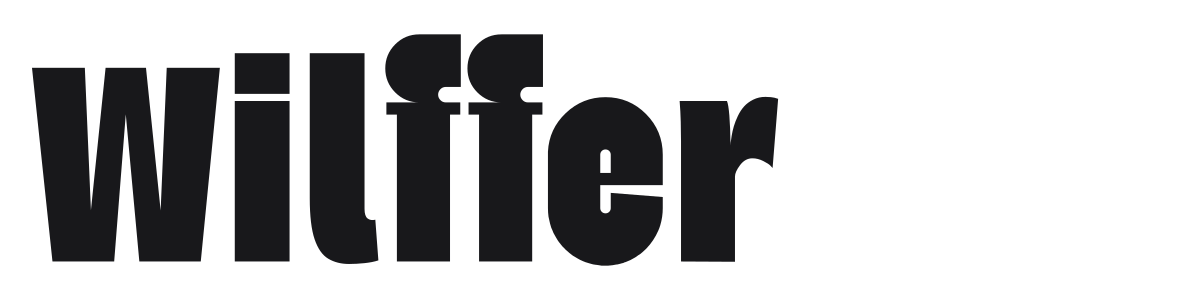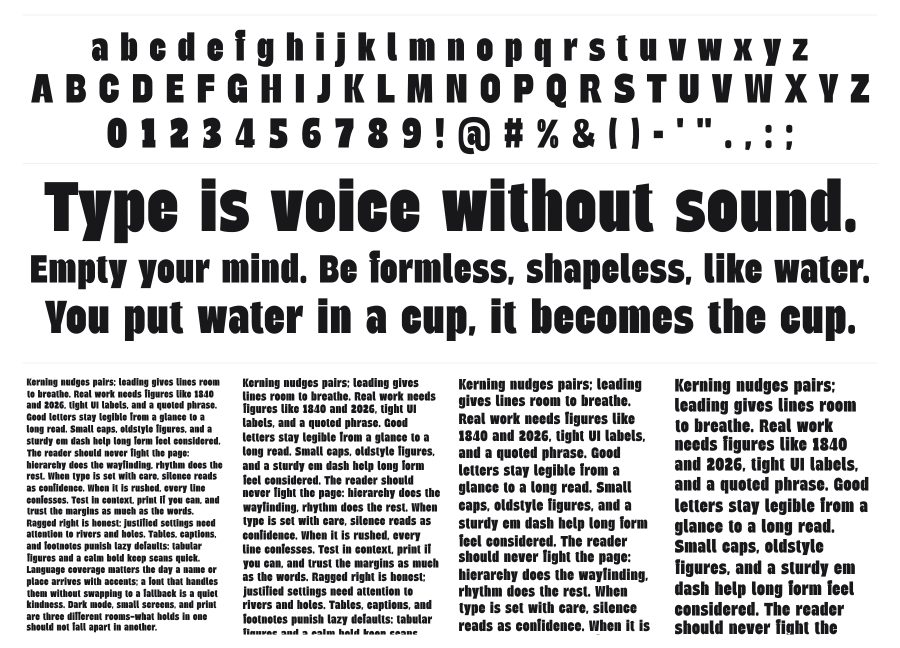
Wilffer
Wilffer is a heavy condensed grotesque sans with extreme weight and tall, tight proportions that command attention at large sizes. Subtle notches at interior stroke junctions keep it from feeling purely mechanical, adding a quietly contemporary texture. It thrives in bold headlines, posters, and identity work where raw typographic weight is the message.